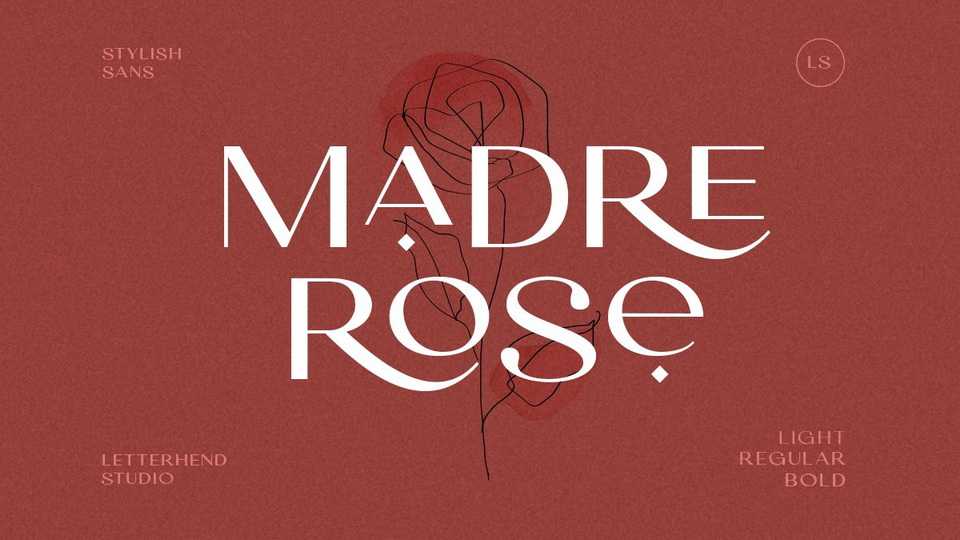
Download Madre Rose font, an elegant and sophisticated sans serif typeface. Madre Rose has many beautiful ligatures which you can play around to match your project, whether for a standout headline, or for a tagline, you name it.